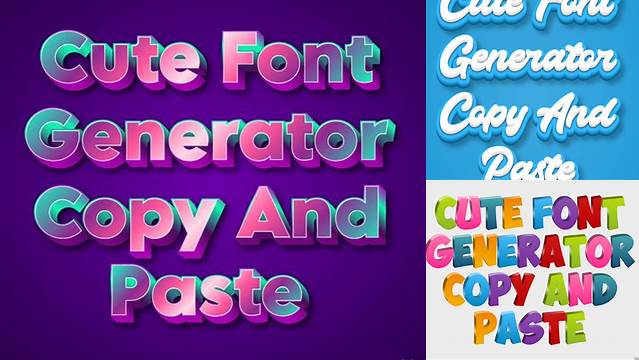
Cute Font Generator: Free Copy & Paste For Unique Text
Hey guys! Ever wanted to spice up your social media, your texts, or maybe even your next creative project with some adorable fonts? Well, you're in the right place! This article is your ultimate guide to using a cute font generator for free. We'll cover everything from where to find these nifty tools to how to copy and paste those charming fonts wherever you need them. So, let's dive in and make your text as cute as a button!
What is a Cute Font Generator?
So, what exactly is a cute font generator? Simply put, it's an online tool that allows you to transform regular text into various styles of cute and fancy fonts. These generators use Unicode characters, which means they aren't actually changing the font in the traditional sense (like you would in a word processor). Instead, they're replacing your letters with special characters that look like different fonts. This is why you can copy and paste them anywhere – social media, messaging apps, you name it! Using a cute font generator is super easy; you just type your text into the generator, and it spits out a bunch of different cute font options. You can then copy and paste your favorite style wherever you want to use it. This is super handy for adding some flair to your social media posts, creating eye-catching headers, or just making your text a little more fun. The best part? Most of these generators are free to use, making them an accessible tool for anyone looking to add a touch of cuteness to their digital content.
Why Use a Cute Font Generator?
Why should you even bother with a cute font generator? Well, there are tons of reasons! First off, they're a fantastic way to make your content stand out. In a world of endless scrolling, a unique font can catch someone's eye and make them stop to read what you have to say. Imagine scrolling through your Instagram feed and seeing a post with a super cute font. Wouldn't you be more likely to check it out? These generators are also great for branding. If you have a consistent cute font across your social media profiles and marketing materials, it helps create a cohesive and memorable brand identity. Think about it: a distinct font can become as recognizable as your logo! Plus, let's be honest, using a cute font is just plain fun. It adds a playful touch to your messages and posts, and it's a simple way to express your personality online. Whether you're creating a birthday message for a friend, designing a social media graphic, or just want to add some flair to your text messages, a cute font generator is a fantastic tool to have in your digital arsenal.
Where to Find Free Cute Font Generators Online
Okay, so you're sold on the idea of using a cute font generator. Now, where do you find one? The good news is, the internet is brimming with options! A quick Google search for "cute font generator free" will yield a plethora of results. Some popular websites offer these tools, often alongside other text and design utilities. When choosing a font generator, consider factors like ease of use, the variety of fonts available, and whether the site is mobile-friendly. Some generators also offer additional features, like the ability to create custom symbols or add decorative elements to your text. It's worth trying out a few different generators to see which one you like best. Many websites also have a preview feature, so you can see what your text will look like in various cute fonts before you copy and paste it. This is super helpful for ensuring you choose the perfect font for your needs. And remember, most of these generators are completely free to use, so you can experiment with different styles without spending a dime!
Step-by-Step Guide: Copy and Paste Cute Fonts
Using a cute font generator is super easy, guys! Let's walk through the steps so you can start creating cute text in no time. First, head over to your chosen cute font generator website. You'll usually find a text box where you can type or paste the text you want to transform. Once you've entered your text, the generator will display a variety of cute fonts below. Scroll through the options and find the font that tickles your fancy. Once you've found a font you love, simply click the "copy" button next to it. This will copy the font to your clipboard. Now, all that's left to do is paste the text wherever you want to use it! Open up your social media app, messaging app, document, or whatever you're working on, and paste the text. Voila! Your text is now rocking a cute font. If you're not happy with the font you chose, you can always go back to the generator and try another one. The beauty of these tools is that they allow you to experiment until you find the perfect look for your message.
Cute Fonts for Social Media
Social media is a fantastic place to unleash the power of cute fonts! Using a cute font on platforms like Instagram, TikTok, and Twitter can help your posts stand out and grab attention. Think about it: your captions, bios, and even your usernames can become more eye-catching with a touch of cuteness. When using a font generator for social media, consider the overall aesthetic you're going for. A playful, bubbly font might be perfect for a fun post, while a slightly more elegant cute font could be ideal for a more serious announcement. Experiment with different fonts to see what resonates with your audience and fits your personal brand. A well-chosen font can make your social media profile more memorable and help you attract more followers. Plus, it's a simple way to add personality to your online presence. So, go ahead and try out some cute fonts on your social media – you might be surprised at the impact it has!
Cute Fonts for Instagram
Instagram is all about visuals, but don't underestimate the power of a cute font in your captions and bio! A unique font can make your profile stand out and help you express your personality. Imagine scrolling through your feed and seeing a bio that pops with a cute, stylish font – you'd be more likely to click that follow button, right? When crafting Instagram captions, using a cute font can draw attention to important messages or add a playful touch to your photos. Think about using different fonts for different types of posts. A script font might be lovely for a quote, while a bolder, more whimsical font could be perfect for an announcement or a fun photo caption. The key is to choose a font that complements your content and enhances your overall aesthetic. And remember, consistency is key! Using a consistent cute font across your Instagram profile can help create a cohesive and memorable brand identity. So, get creative and start experimenting with those cute fonts on Instagram!
Cute Fonts for TikTok
Tiktok is a whirlwind of creativity, and using cute fonts can help your videos stand out from the crowd! Adding stylish text to your videos can grab viewers' attention and convey your message in a fun and engaging way. Think about using cute fonts for on-screen text, captions, or even in your video descriptions. A playful font can add a touch of personality to your content and make it more memorable. When choosing a font for TikTok, consider the overall vibe of your videos. A bubbly, energetic font might be perfect for a dance video, while a more whimsical font could be ideal for a comedic skit. Experiment with different styles to see what resonates with your audience. You can even use cute fonts to create eye-catching thumbnails that draw viewers in. And don't forget about text overlays – a well-placed cute font can add a professional touch to your videos and make them more visually appealing. So, get your cute font generator ready and start adding some flair to your TikToks!
Cute Fonts for Twitter
Even on a platform known for its brevity like Twitter, cute fonts can make a big impact! With character limits in place, every tweet counts, and a unique font can help your message stand out in a sea of text. Consider using a cute font in your username or display name to make your profile more memorable. In your tweets, a cute font can draw attention to key points or add a touch of personality to your thoughts. Think about using different fonts for different types of tweets. A bold, eye-catching font might be perfect for an announcement, while a more subtle cute font could be ideal for a casual tweet or reply. The key is to choose a font that's legible and complements your message. And remember, consistency is key! Using a consistent cute font across your Twitter profile can help create a cohesive and recognizable brand. So, give your tweets a makeover with some cute fonts and see the difference they can make!
Cute Fonts for Messaging Apps
Want to add some flair to your texts and messages? Cute fonts are the perfect way to do it! Whether you're using WhatsApp, Telegram, or any other messaging app, a cute font can make your messages more expressive and fun. Imagine sending a birthday message to a friend in a playful, bubbly font, or surprising your significant other with a romantic message in a delicate script font. Using a cute font generator for your messages is a simple way to add a personal touch and show your personality. Think about using different fonts for different types of messages. A bold, eye-catching font might be perfect for making an announcement, while a more casual cute font could be ideal for everyday conversations. And don't forget about emojis! Combining cute fonts with emojis can create super expressive and visually appealing messages that are sure to make your friends and family smile.
Conclusion: Unleash Your Creativity with Cute Font Generators
So, there you have it, guys! Everything you need to know about using a cute font generator for free. From finding the perfect font to copying and pasting it across your favorite platforms, you're now equipped to add a touch of cuteness and personality to your text. Remember, a unique font can make your content stand out, create a memorable brand identity, and simply make your messages more fun. Whether you're sprucing up your social media, designing invitations, or adding flair to your website, a cute font generator is a fantastic tool to have in your digital toolbox. So, go ahead and unleash your creativity – the possibilities are endless! Happy font-generating!